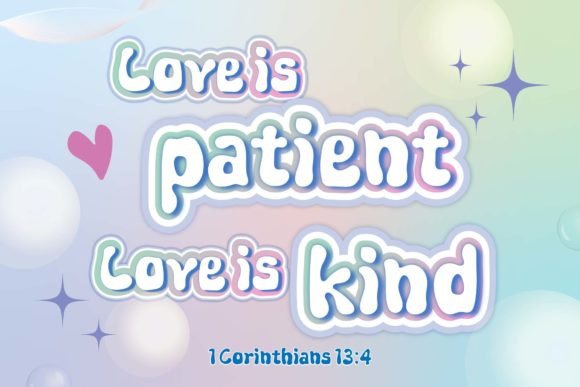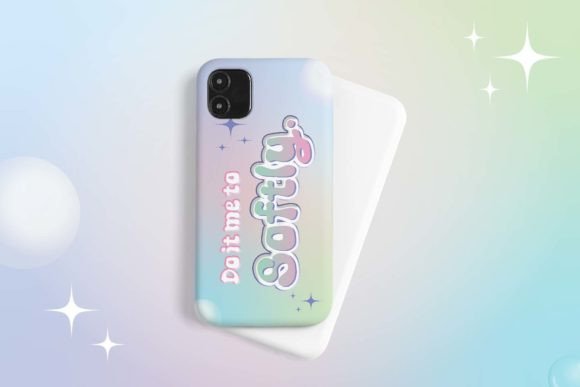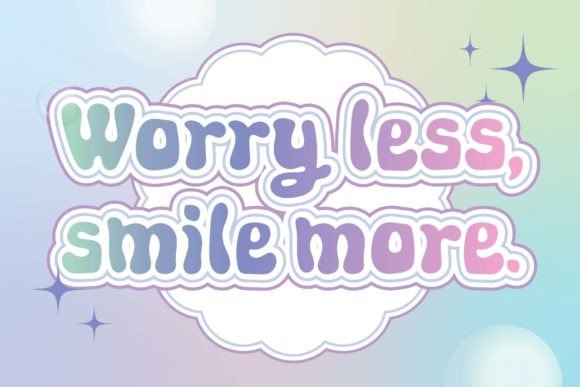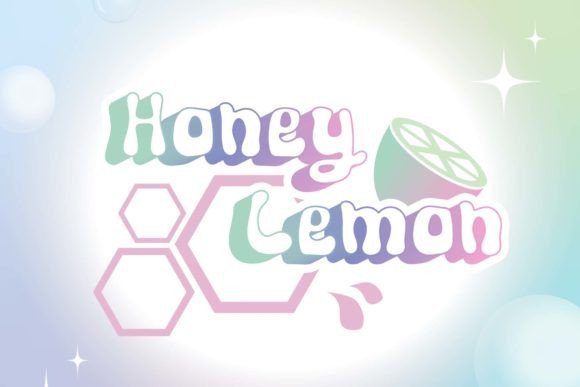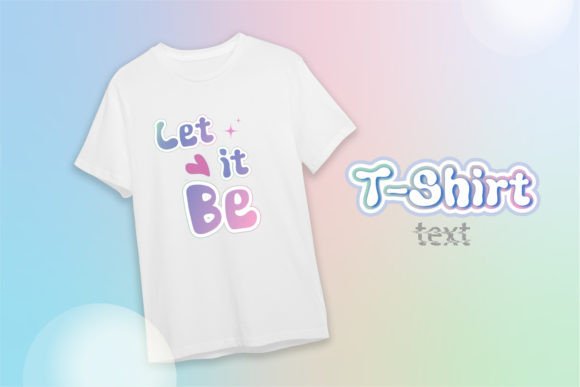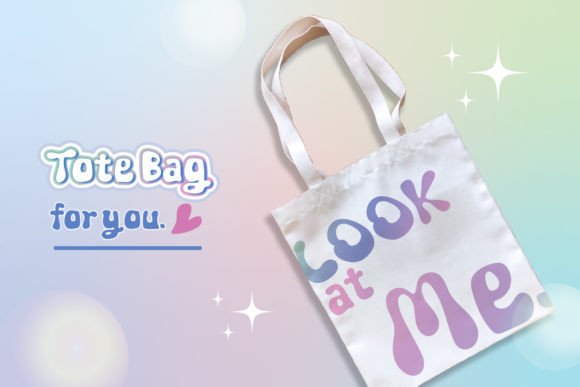
Get Ready to Pop with the Ultimate Retro Font
Have you ever been brainstorming a design project, and suddenly, a burst of creativity hits you? The colors start to swirl, and you envision a vibrant, playful look that will capture the attention of your audience. For many designers, this moment is a game-changer. And, with the right font, you can take your design from bland to grand.
Enter the Bubble Font – a groovy retro font that’s sure to add a dash of cheerfulness to your designs. Whether you’re creating a spring-themed poster, a marketing campaign, or a fun mug design, this font is the perfect addition. Its playful, bubbly style will elevate any creation, making it stand out from the crowd.
Bubble Font Key Features
- Character Count: The font contains over 700 unique characters, including uppercase and lowercase letters, numerals, punctuation marks, and special symbols.
- Unique Characteristics: The Bubble Font features a playful, rounded design with a unique bubble-like shape, making it perfect for creating fun and whimsical designs.
Bubble Font Review
I recently had the chance to work with the Bubble Font, and I must say it’s a unique and eye-catching choice. ✨ The font’s rounded, bubbly design adds a playful touch to any project. It’s perfect for creating a fun and youthful vibe, especially in children’s content or social media graphics.
One of the things I like about Bubble Font is its versatility. It comes in a variety of weights and styles, making it easy to customize to fit different design needs. Additionally, the font is highly legible, even at small sizes, which is a major plus.
However, there are a few limitations to keep in mind. ⚠️ The font can be a bit too playful for more serious or professional projects, and it may not be suitable for all audiences. Additionally, the font’s rounded design can make it difficult to use in situations where clarity and readability are crucial, such as in body text.
- Unique, rounded design
- Available in various weights and styles
- Highly legible, even at small sizes
- Perfect for playful and youthful projects
- Not suitable for serious or professional projects
The Bubble Font is perfect for creating playful, whimsical designs that add a touch of fun to your content. Use it to create eye-catching social media graphics, promotional materials, or educational resources. Experiment with different font sizes, colors, and arrangements to achieve unique and creative effects.